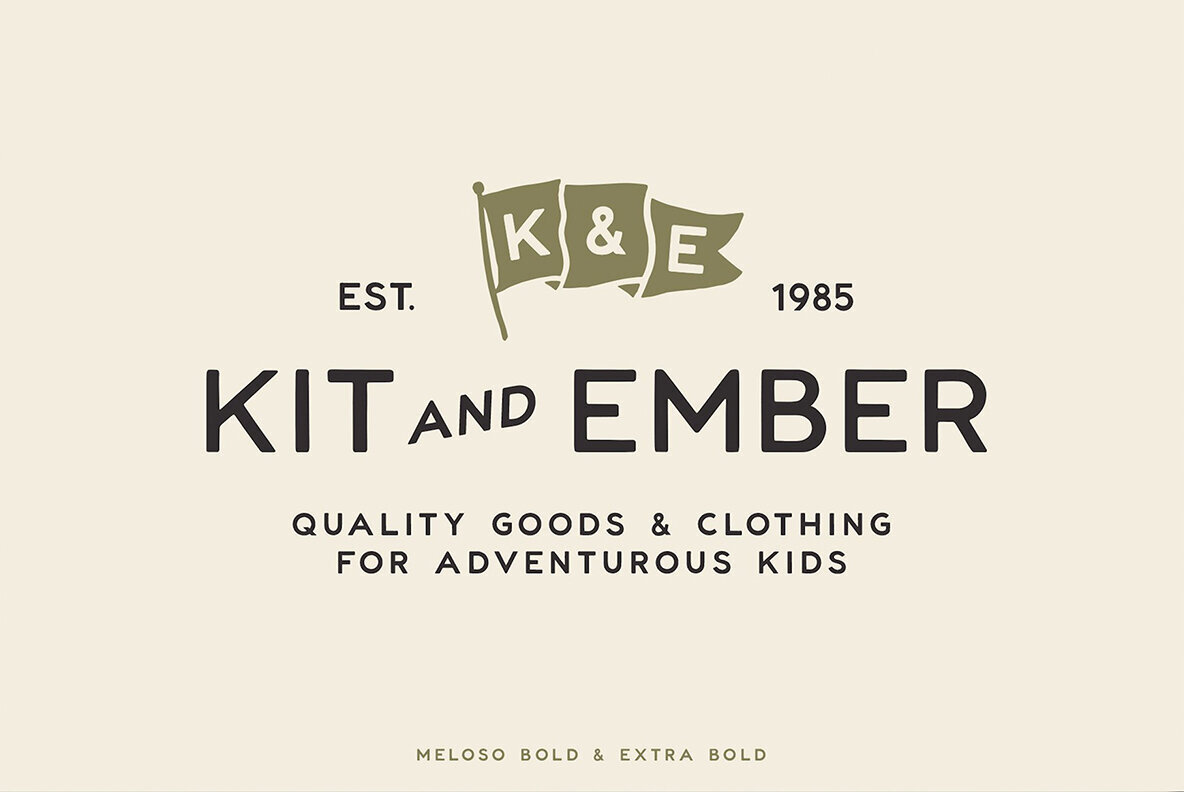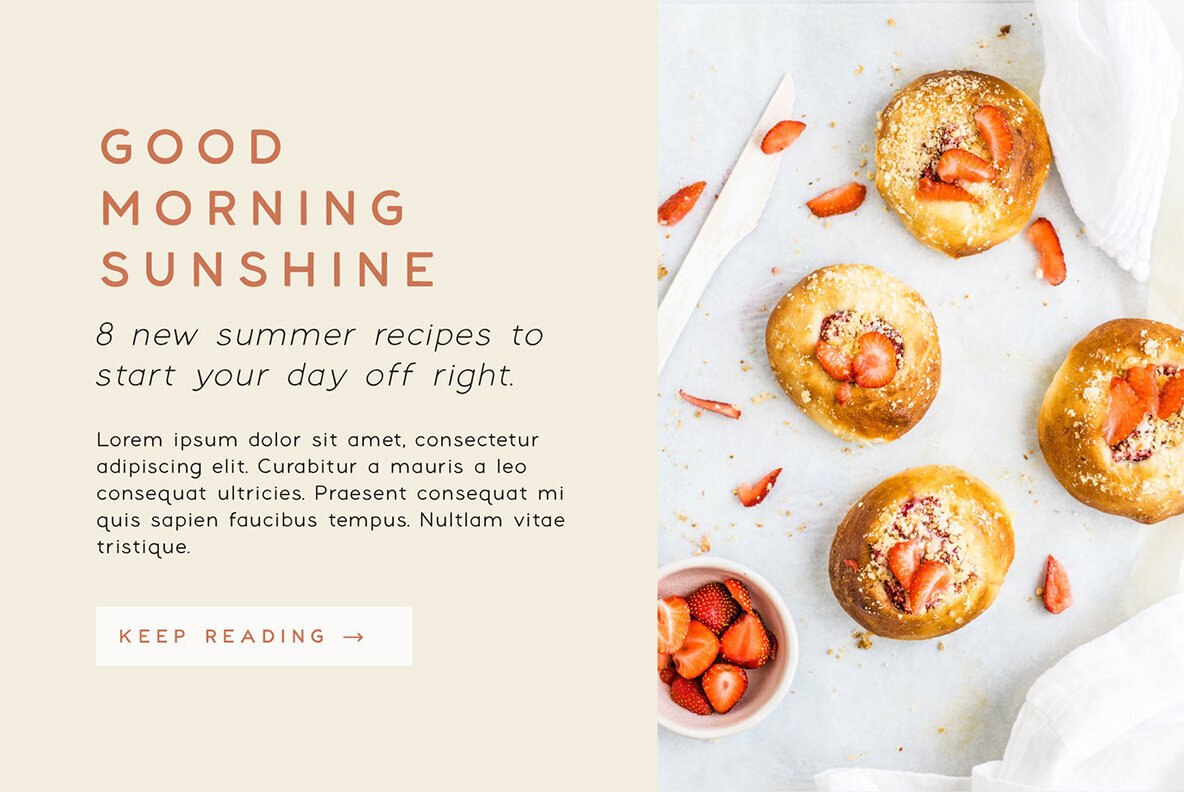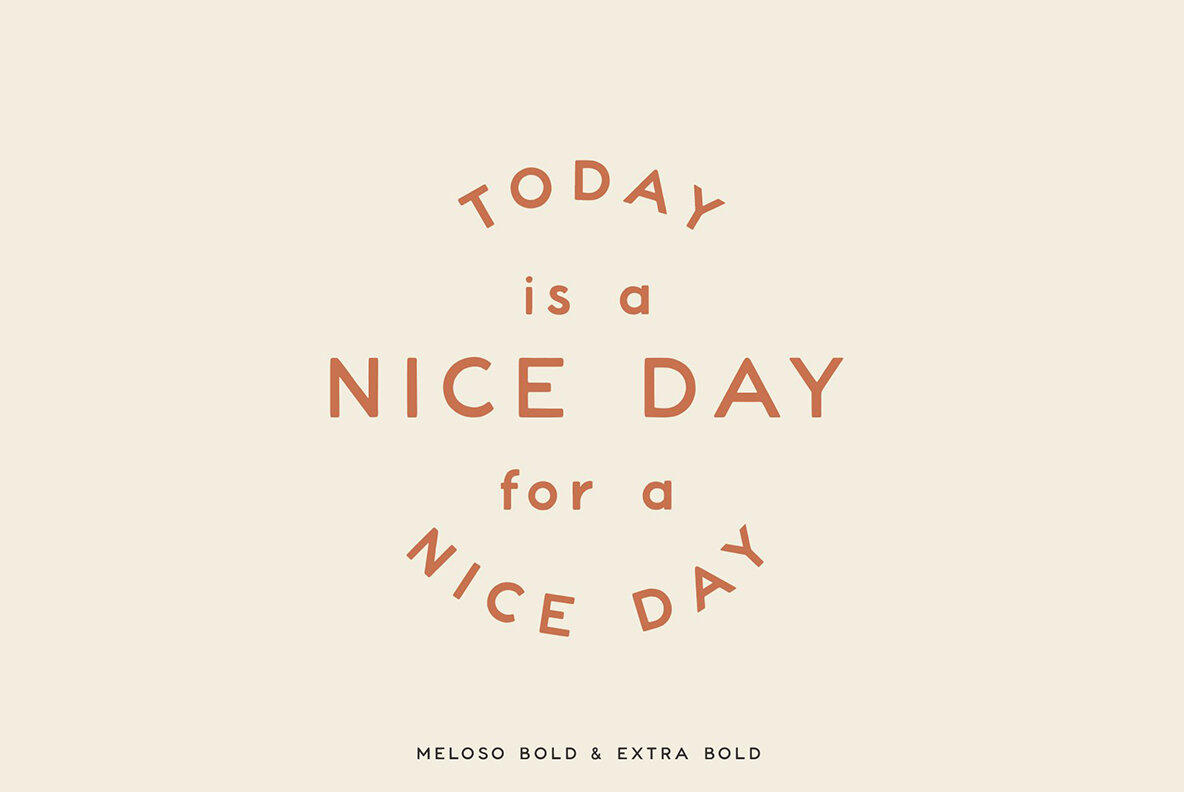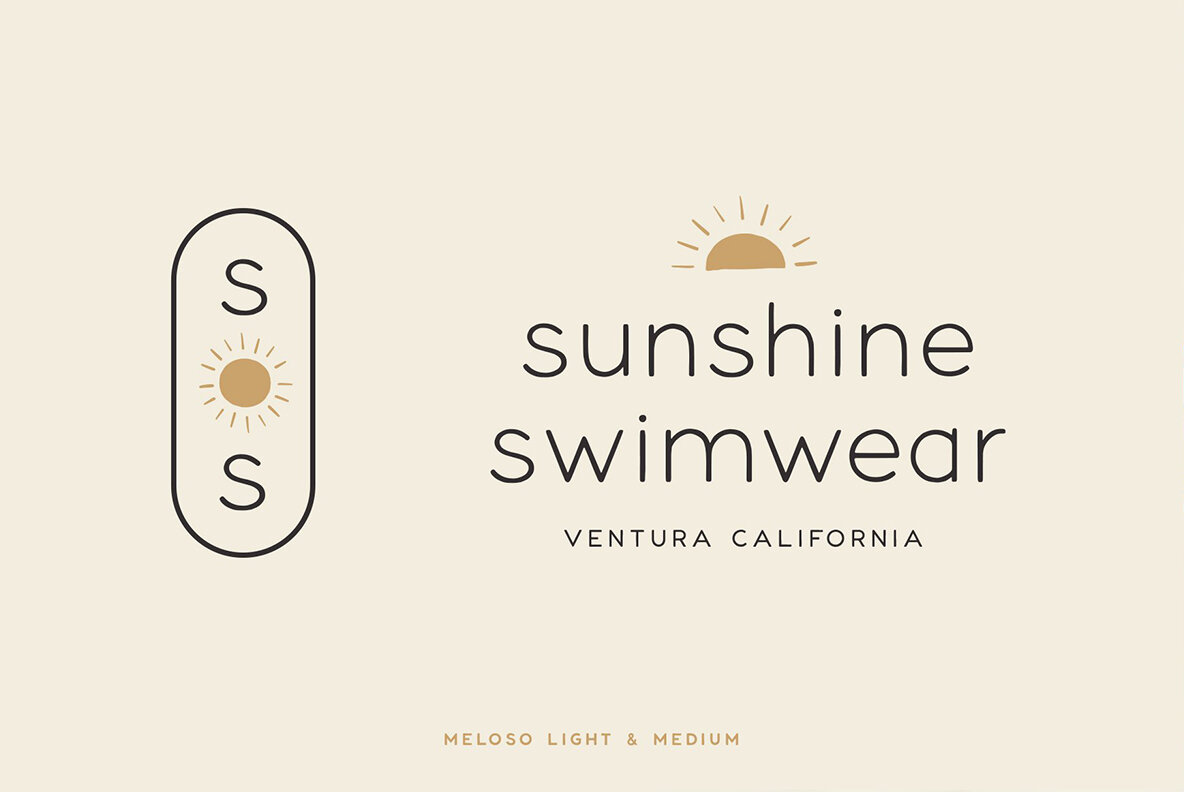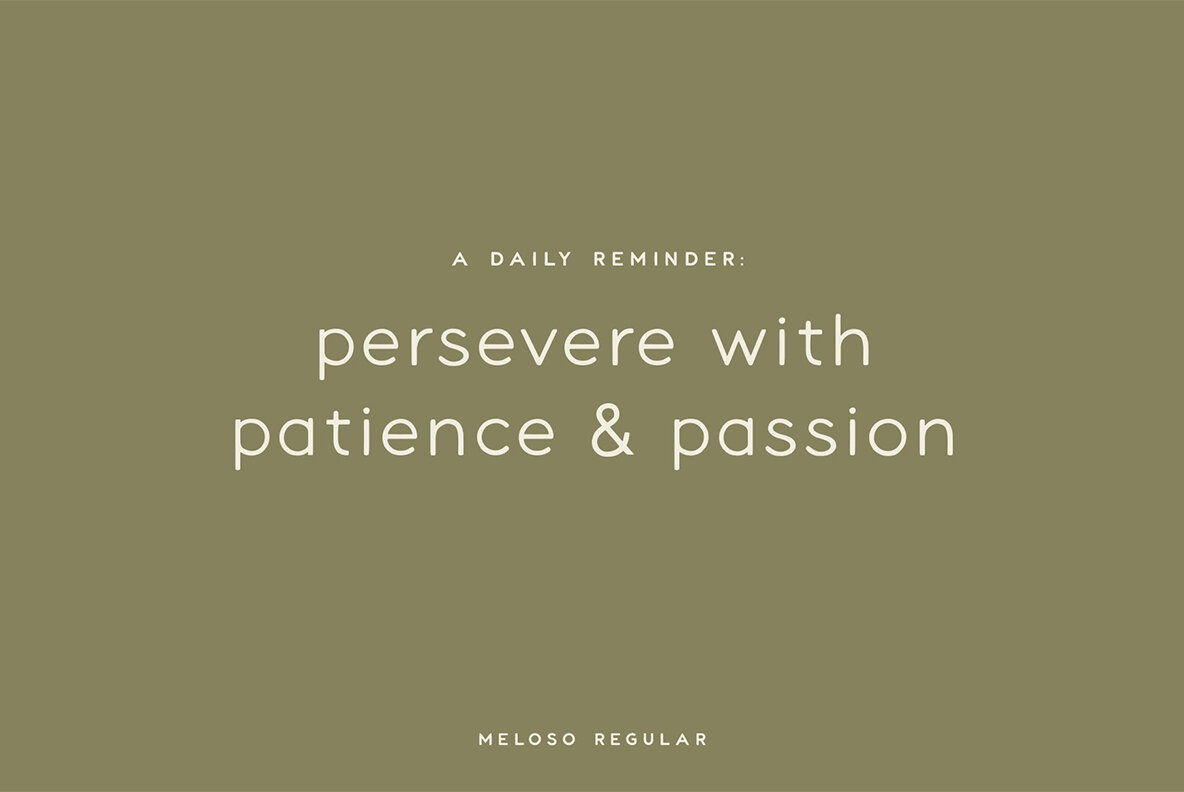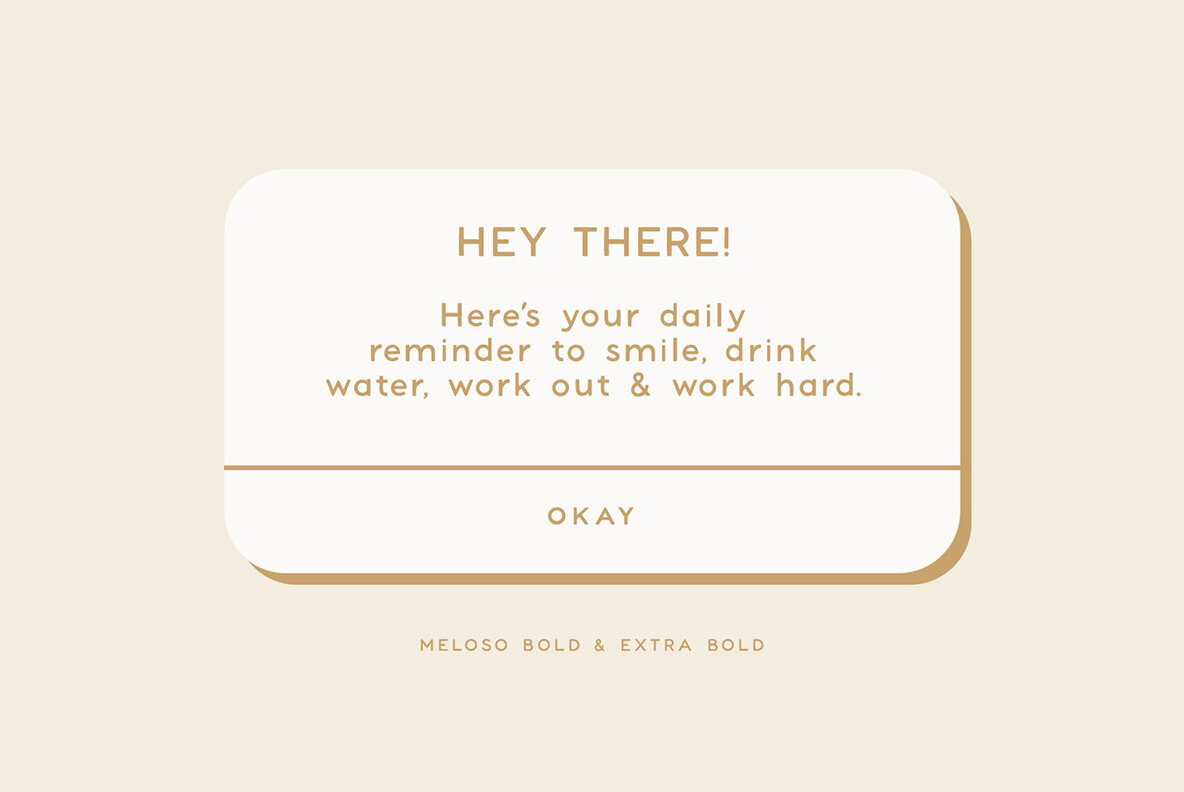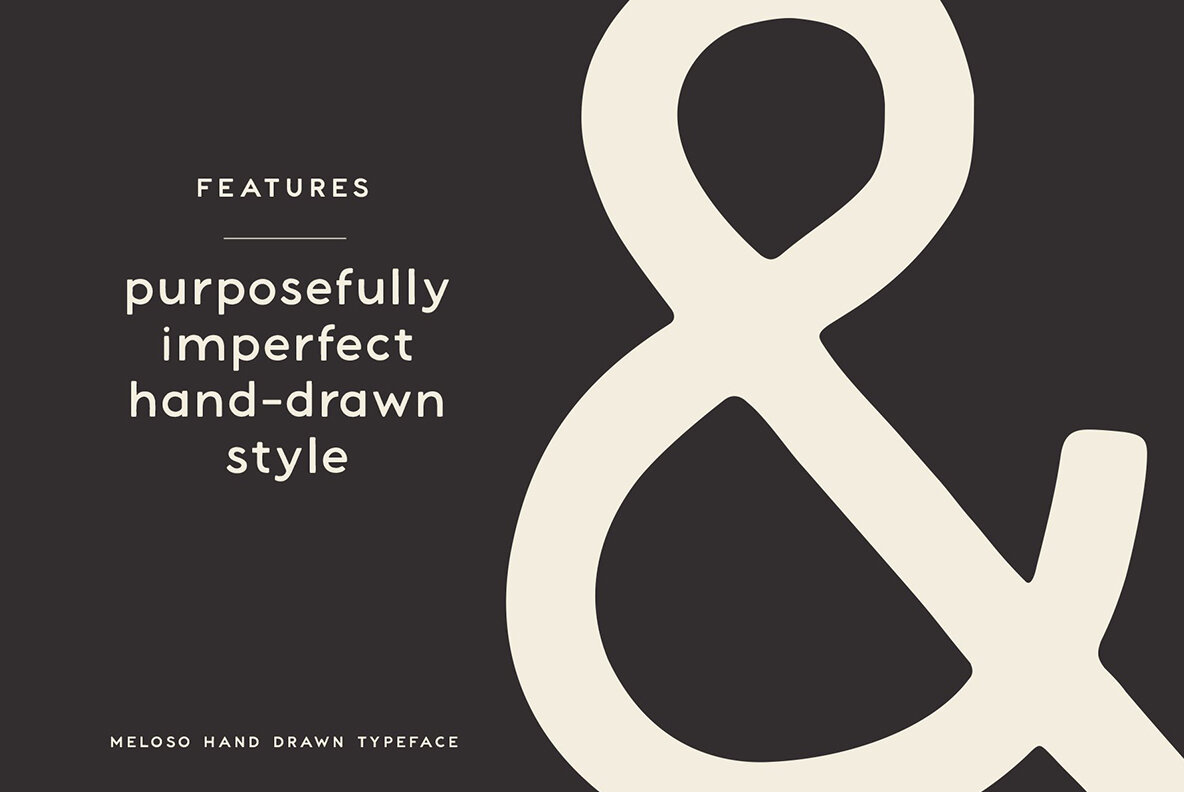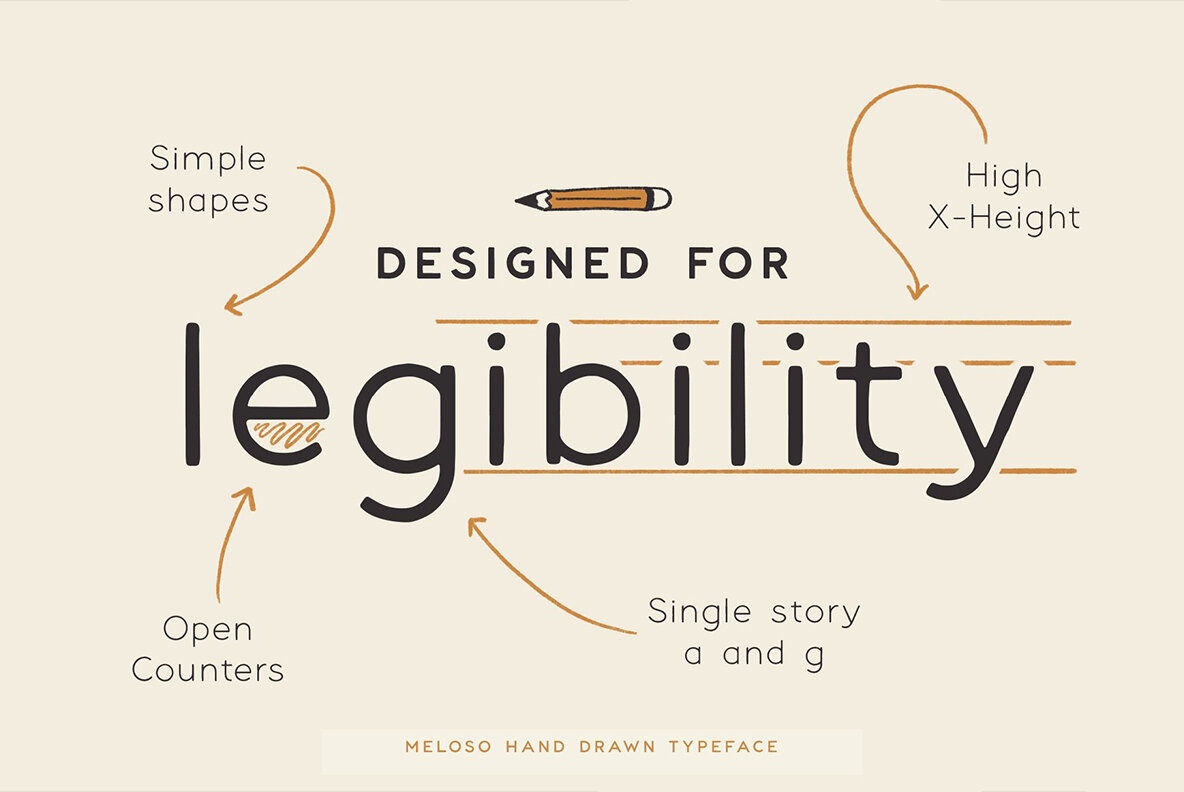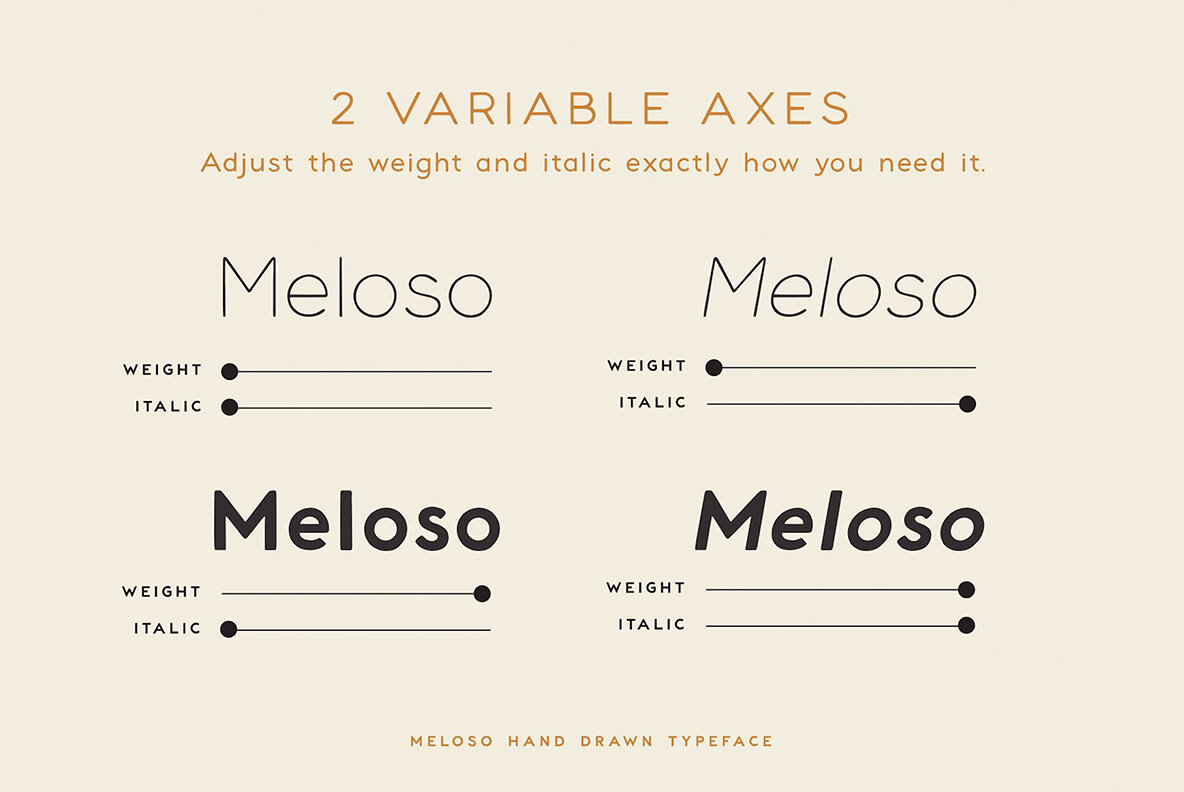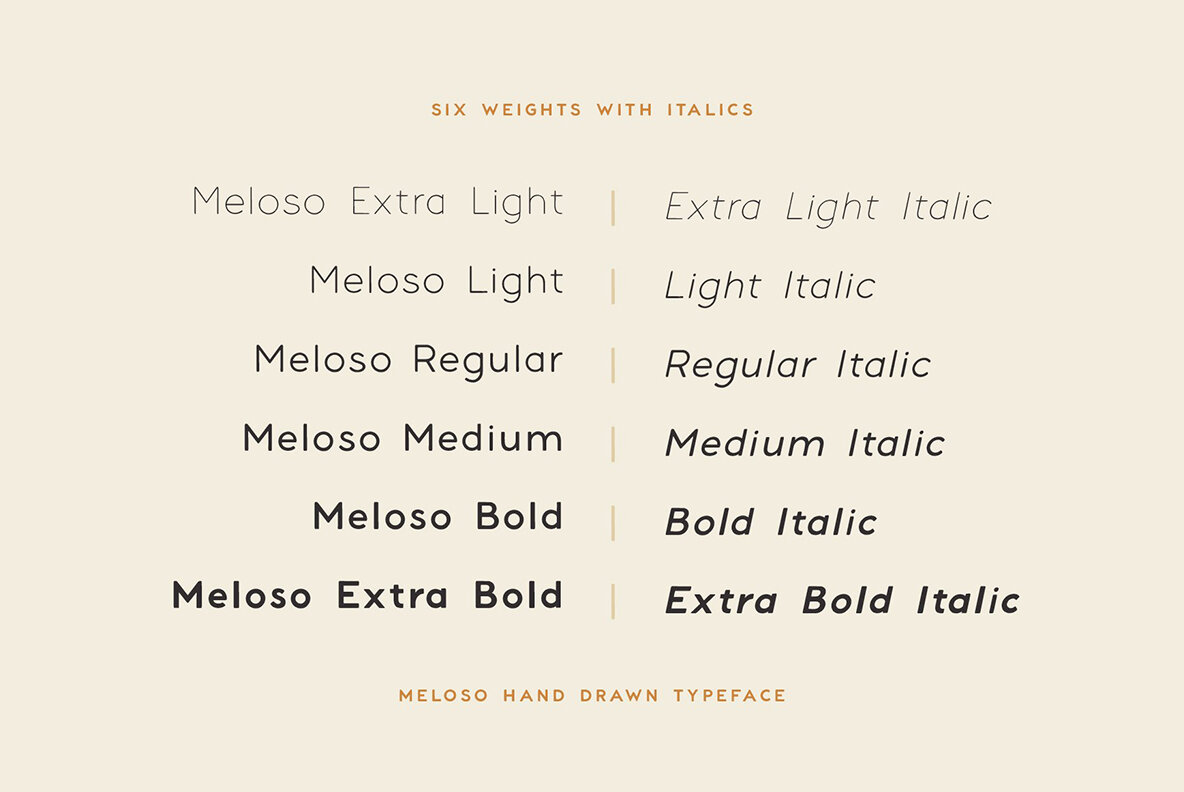
Meloso Variable Hand Drawn Typeface Font
Meloso is an easygoing typeface. It has a playful and organic feel that has its own hand-drawn charm while still being incredibly legible due to its simple shapes and high x-height. It has the unique ability to stand alone as a title text or work in small paragraph form. It's the perfect way to bring the friendly feel of an "imperfect" and slightly rounded font into your next project. Meloso is a variable font with 6 set weights. If you're using a program that supports variable fonts, you'll be able to choose any point between the "Extra Thin" and "Extra Bold" weights to get the perfect thickness and adjust the italic to the angle you need. You can also install the standard OTF files to have the 6 set weights listed below. Weights Included: Extra Light & Italic Regular & Italic Medium & Italic Bold & Italic Extra Bold & Italic